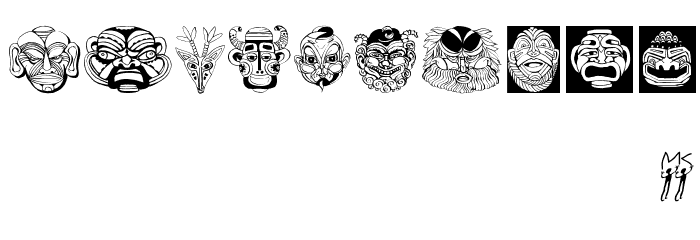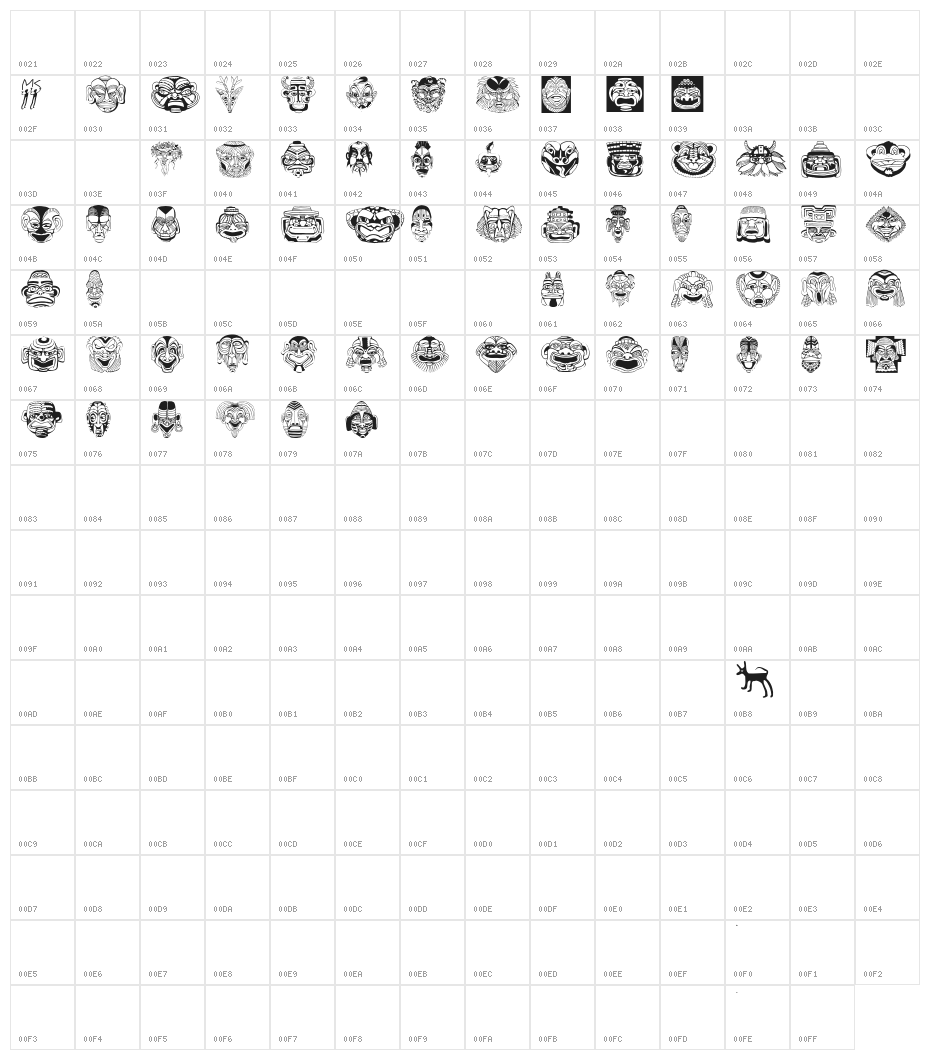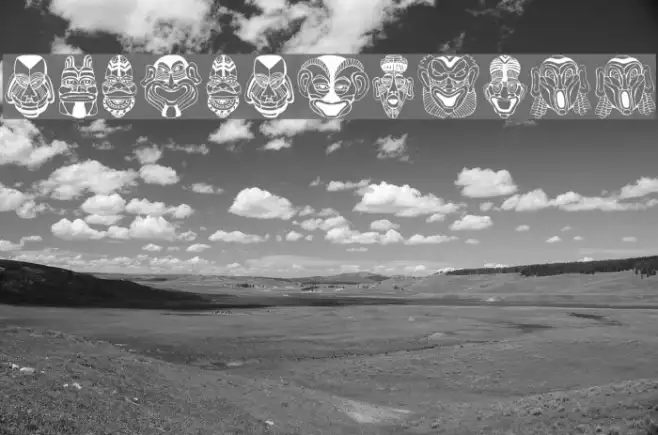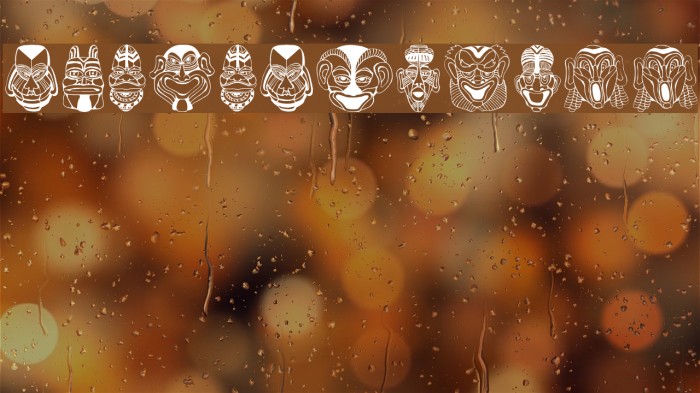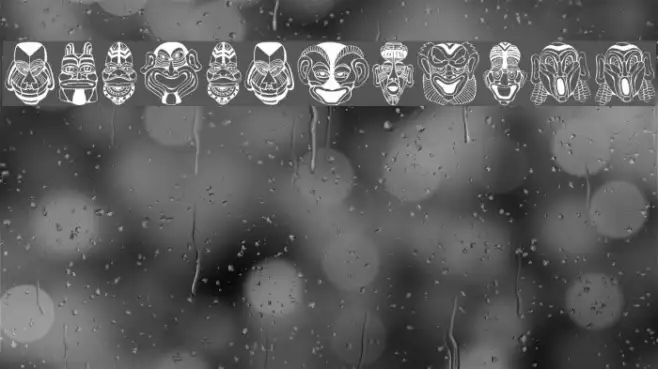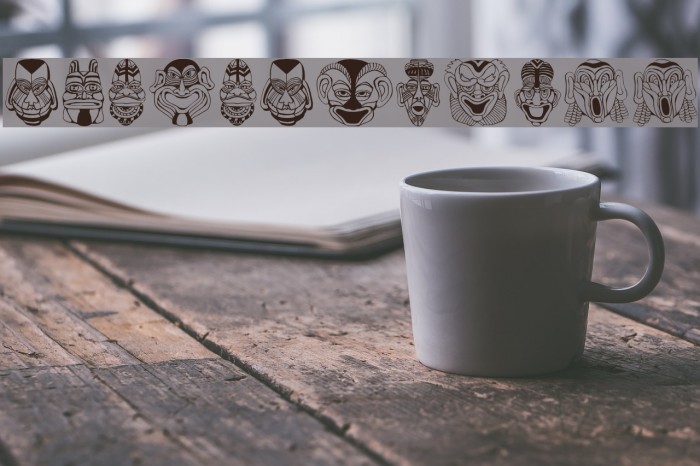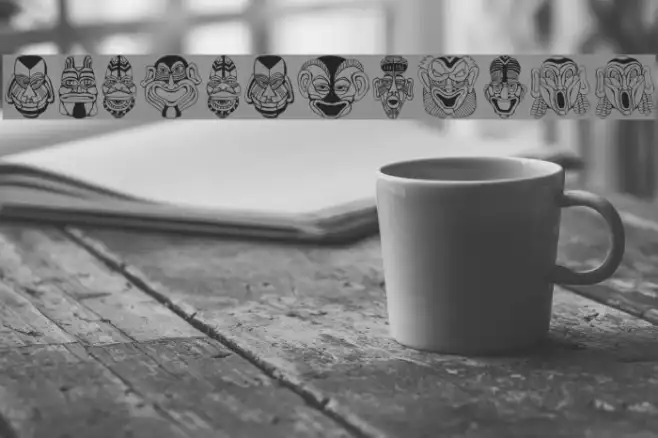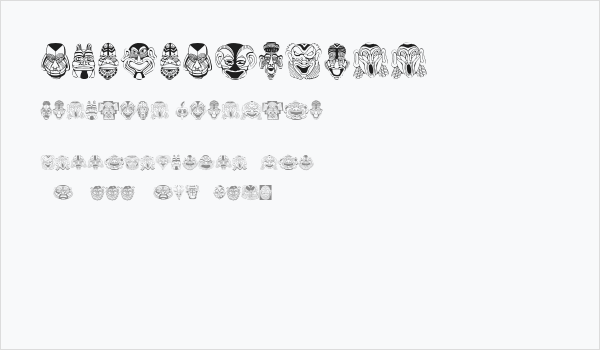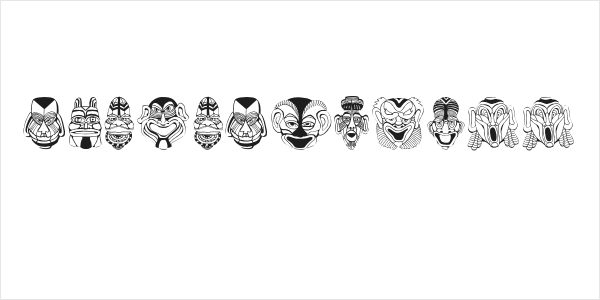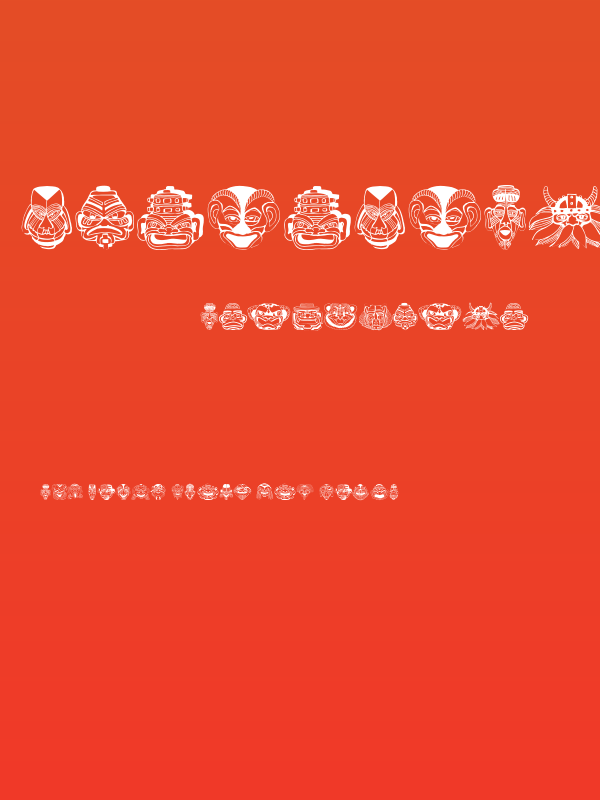
MasksMKThree Font
MasksMKThree Description
A decorative display typeface composed of highly detailed, stylized mask illustrations for each character. Each glyph is unique, featuring intricate line work, bold shapes, and a variety of expressive facial features inspired by tribal and ceremonial masks. The characters are visually complex, with strong contrasts between black and white, and each symbol is distinct, making the set visually engaging and artistic.
| Overall Style | Decorative, Artistic, Ethnic, Expressive |
| Use Case | Headlines, Logos, Posters, Artistic projects |
| Proposed Projects | Posters, album covers, event branding, cultural or festival graphics, art projects, editorial illustrations. |